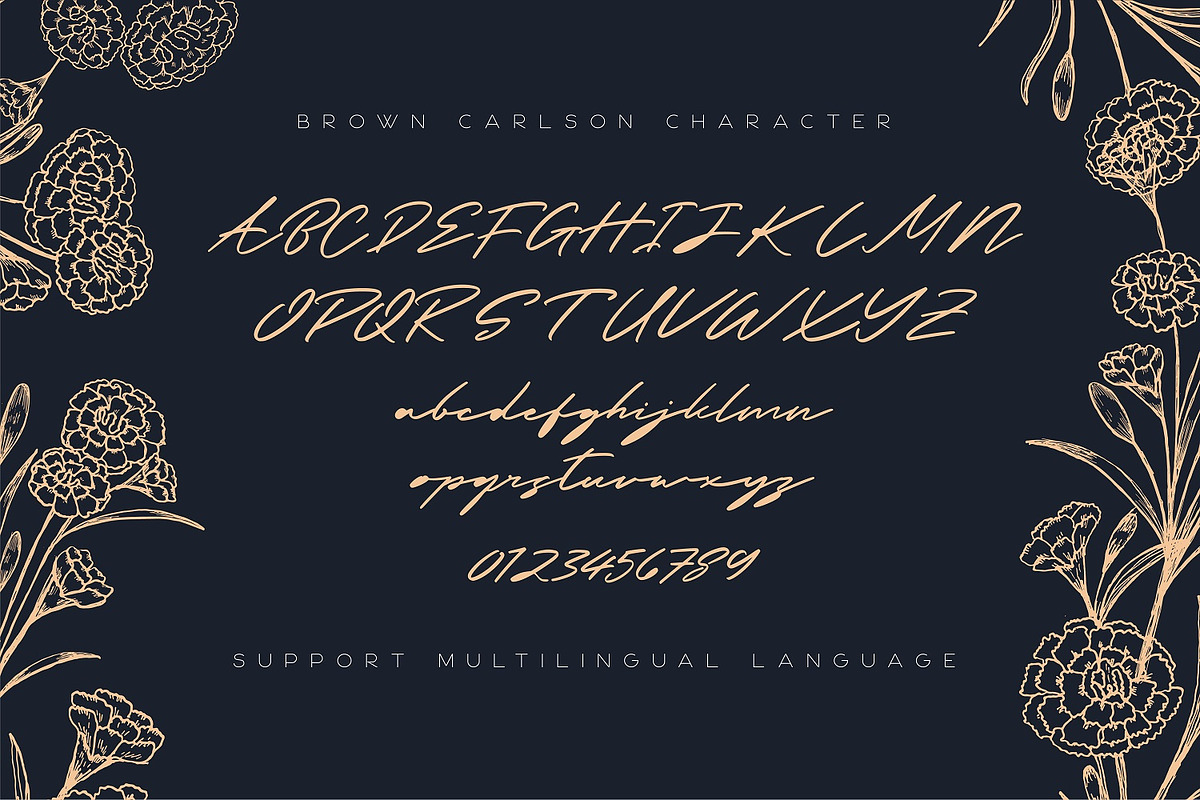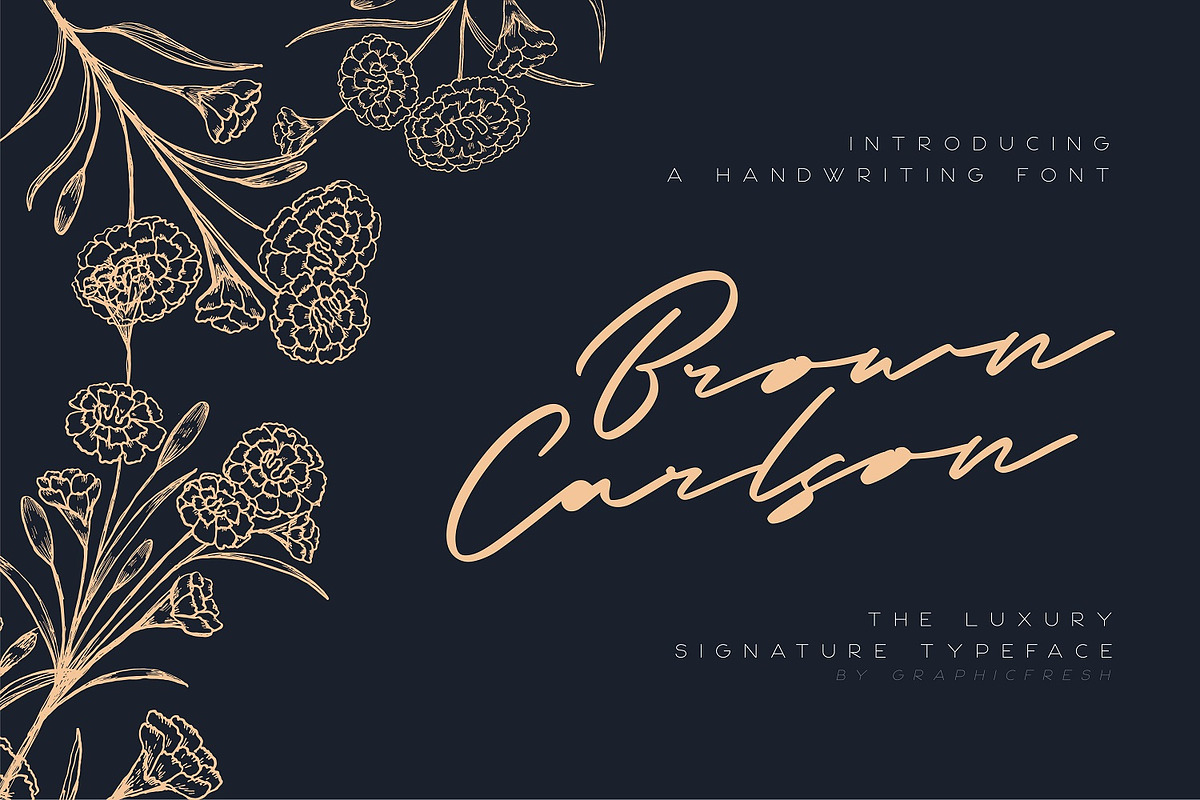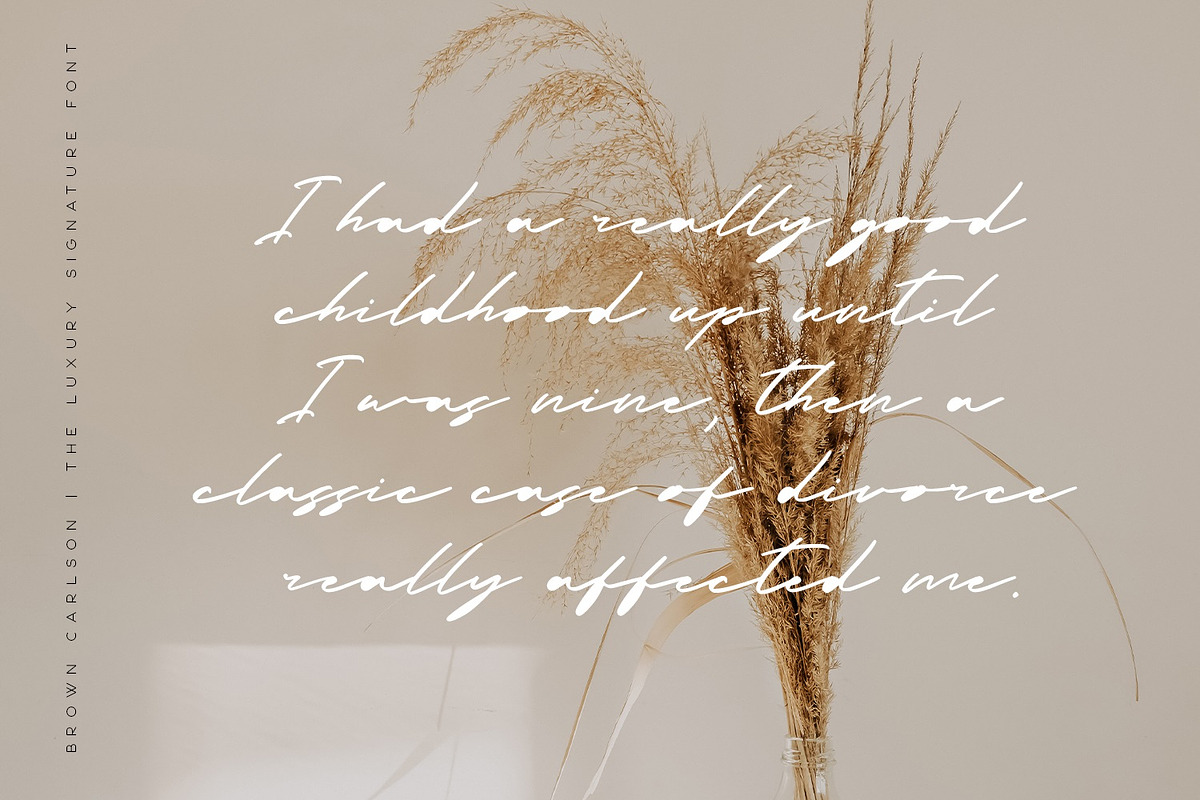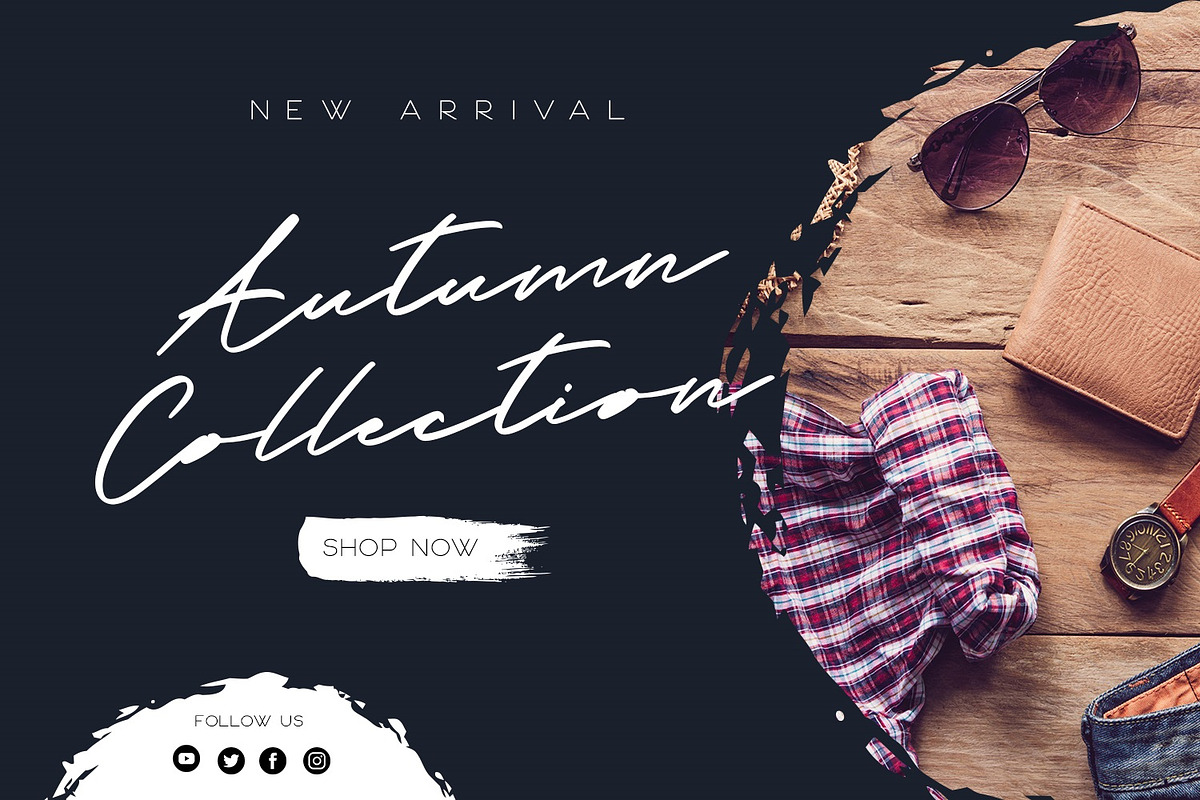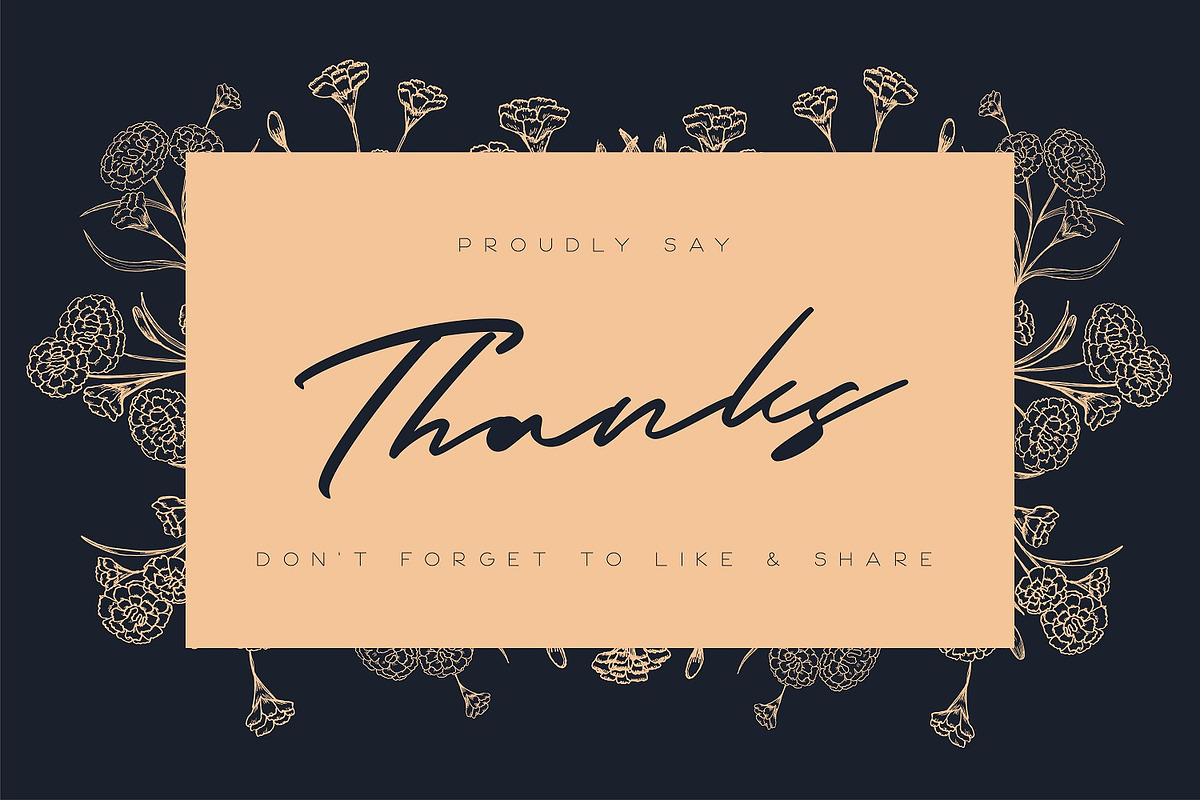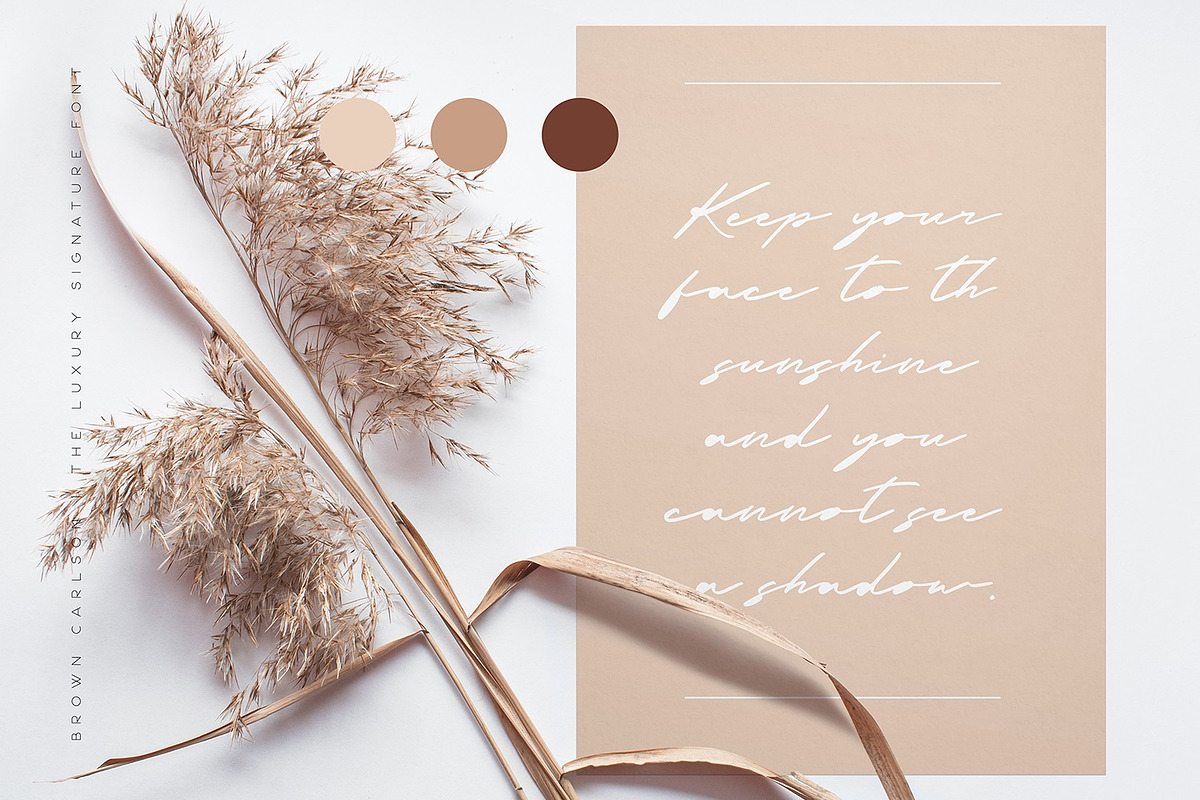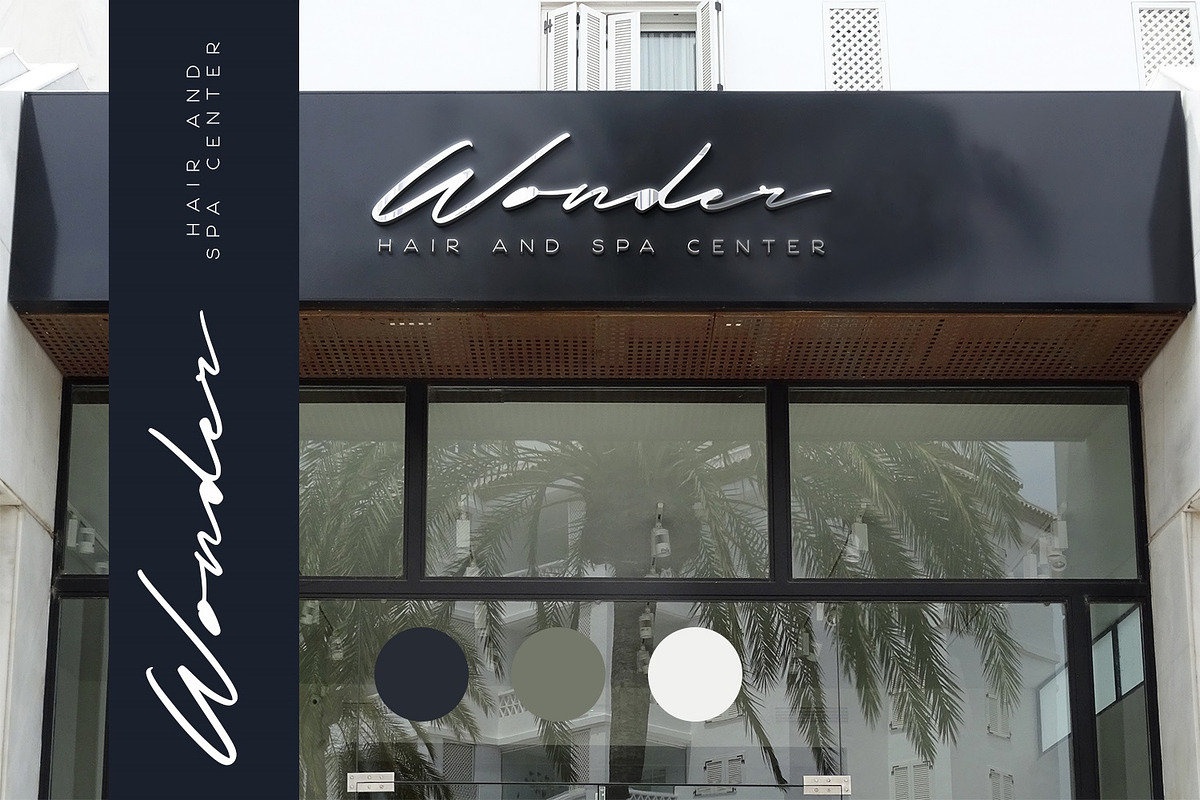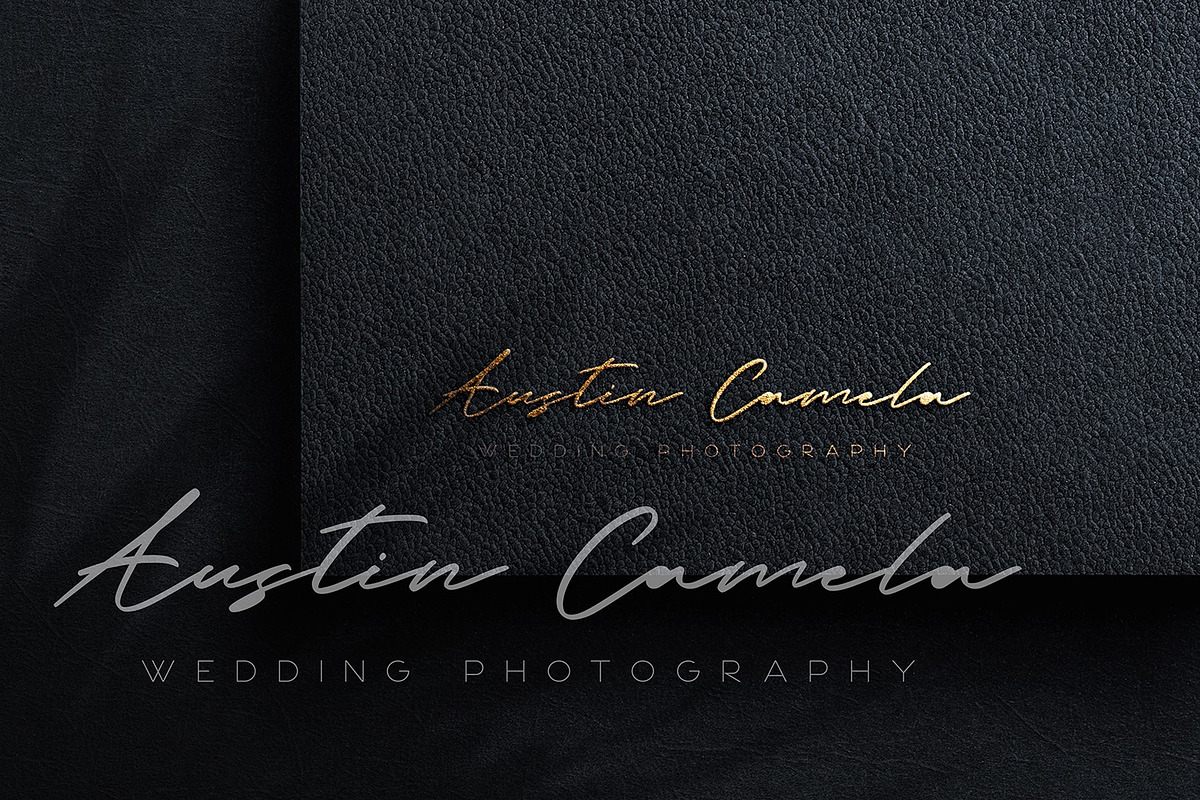
Brown Carlson - The Luxury Signature
Brown Carlson - The Luxury Signature - A Handwritting script and unique character! it's perfect for logos, name card, magazine layouts, invitations, headers, or even large-scale artwork.